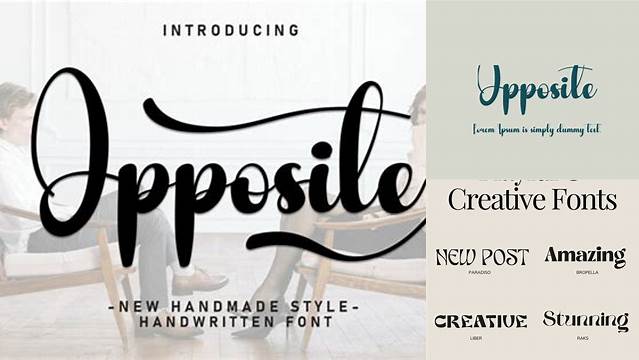
Opposite Font: Free Download For Creative Designs
Hey guys! Ever felt like your designs need a little twist, something that stands out from the crowd? Well, you're in the right place! Today, we're diving into the world of opposite fonts, and how you can snag them for free. Let’s get started!
What is an Opposite Font?
Before we jump into downloading, let's understand what exactly an opposite font is. Generally speaking, an opposite font doesn't have a strict, universally defined meaning in typography. The term can be interpreted in a few ways, often referring to fonts that feature contrasting elements or are used in a way that creates visual tension. For example, a font might be considered an opposite font if it combines thick and thin strokes in an unexpected manner, or if it's used in a context that clashes with its inherent style (like using a playful font for a serious topic).
One interpretation could be fonts that are mirror images of each other, or fonts that represent a stark contrast in style – think pairing a very modern, sans-serif font with a classic, ornate serif font. Another understanding might involve fonts that include reversed or inverted characters, giving a literal “opposite” feel. Why is this important? Because understanding the concept helps you use these fonts effectively in your designs. Think about creating visual interest by juxtaposing a bold, blocky font with a delicate, script font. The contrast can draw the eye and add depth to your work. Experimenting with opposite fonts can lead to unique and memorable designs. It's all about playing with expectations and creating something that feels fresh and innovative. So, next time you're working on a project, consider how you can incorporate the idea of contrast using different font styles to make your design truly pop!
Why Use Opposite Fonts?
So, why should you even bother using opposite fonts? Well, it's all about creating visual interest and grabbing attention! In a world saturated with information, your designs need to stand out. Opposite fonts can help you do just that. Imagine a poster with a sleek, modern font paired with a vintage, handwritten style. The contrast immediately catches the eye and makes people want to learn more. Plus, using opposite fonts can add depth and personality to your projects. It shows that you're thinking outside the box and willing to experiment with different styles. This can be particularly useful in branding, where you want to create a unique identity that resonates with your audience. Think about how different font combinations can evoke different emotions. A serious, professional font paired with a playful, whimsical font can create a sense of balance and approachability. On the other hand, pairing two very different fonts can create a sense of tension and excitement. The key is to use these contrasts intentionally to convey the message you want to send. Using opposite fonts isn't just about aesthetics; it's about communication. It's about using typography as a tool to enhance your message and make your designs more impactful. So, go ahead and experiment with different combinations. You might be surprised at the results!
Pairing Opposite Fonts Like a Pro
Alright, you've got your opposite fonts installed and ready to go. But how do you actually use them effectively? Pairing fonts can be tricky, but here are some tips to help you pair opposite fonts like a pro. First, think about contrast. You want fonts that are different enough to create visual interest, but not so different that they clash. A good rule of thumb is to pair a serif font (like Times New Roman) with a sans-serif font (like Arial). The serifs (the little feet on the letters) provide a classic, traditional feel, while the sans-serif font is clean and modern. Another thing to consider is the mood or tone you want to convey. Different fonts evoke different emotions, so choose fonts that align with your overall message. For example, a playful, handwritten font might be great for a children's book, but not so much for a corporate report. Also, pay attention to the hierarchy of your text. Use a bolder, more attention-grabbing font for headings and subheadings, and a more readable font for body text. This helps guide the reader's eye and makes your design easier to digest. Don't be afraid to experiment! Try out different combinations and see what works best for your project. There are also tons of resources online that offer suggestions for font pairings. And remember, less is often more. Stick to two or three fonts in a single design to avoid overwhelming the viewer. With a little practice and experimentation, you'll be pairing opposite fonts like a pro in no time!
Opposite Fonts in Branding
Using opposite fonts in branding can be a game-changer. A well-chosen font pairing can instantly communicate your brand's personality and values. Think about some famous brands and the fonts they use. Many companies use a combination of a strong, authoritative font for their logo and a more approachable font for their marketing materials. This creates a sense of trust and professionalism while still being relatable. When choosing fonts for your brand, consider your target audience. What kind of message do you want to send? If you're targeting a younger audience, you might want to use a more playful and modern font combination. If you're targeting a more mature audience, you might want to stick with classic, timeless fonts. Also, think about the different applications of your brand fonts. Will they be used on your website, in print materials, or on social media? Make sure the fonts you choose look good in all these different contexts. And remember, consistency is key. Once you've chosen your brand fonts, stick with them! This will help create a cohesive and recognizable brand identity. Using opposite fonts strategically in your branding can help you stand out from the competition and connect with your audience on a deeper level. It's all about finding the right balance and creating a visual identity that truly represents your brand.
Free Font Resources Online
Alright, let’s dive deeper into some awesome free font resources online where you can find those perfect opposite fonts. We already mentioned a few, but let's get specific. First up, Google Fonts. This is a goldmine! Google Fonts offers a huge selection of free, open-source fonts that you can use in any project, commercial or personal. The best part is that they're super easy to use – you can even embed them directly into your website with a simple code snippet. Another great resource is DaFont. DaFont has a massive collection of fonts, but be aware that the licensing terms can vary. Some fonts are free for personal use only, while others are free for commercial use as well. Always double-check the licensing before using a font in a commercial project. Font Squirrel is another excellent option. Font Squirrel focuses on providing high-quality, free fonts that are licensed for commercial use. They also have a handy Font Identifier tool that can help you identify fonts from images. If you're looking for more unique and quirky fonts, check out Creative Market and Envato Elements. While these sites primarily offer paid fonts, they often have freebies available as well. Sign up for their newsletters to stay updated on the latest free font offerings. And don't forget about individual font designers! Many designers offer free fonts on their personal websites as a way to promote their work. A quick Google search can help you find these hidden gems. When downloading fonts from any website, always be sure to scan the files for viruses before installing them. It's better to be safe than sorry! With a little bit of digging, you can find some amazing free fonts online to elevate your designs.
Finding Inspiration for Font Combinations
Sometimes, the hardest part of working with opposite fonts is simply coming up with ideas. Fortunately, there are plenty of places to find inspiration for font combinations: 1. Design blogs and websites: Many design blogs and websites showcase examples of great typography. Browse these sites to see how other designers are using fonts and get ideas for your own projects. 2. Dribbble and Behance: Dribbble and Behance are online communities where designers share their work. These sites are a great source of inspiration for font combinations. 3. Pinterest: Pinterest is a visual discovery engine where you can find ideas for just about anything, including font combinations. Search for keywords like